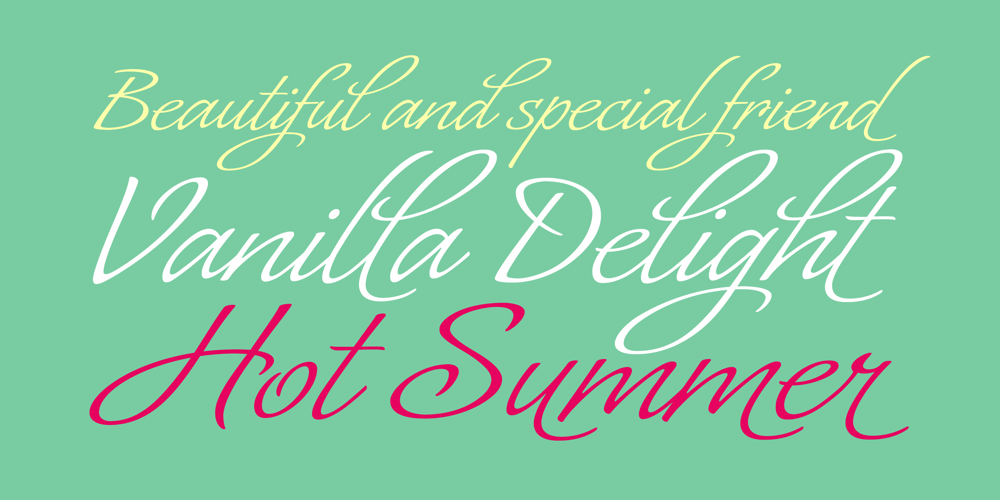
Angelus Font Family was designed by Alejandro Paul, Angel Koziupa and published by Sudtipos. Angelus contains 1 styles and family package options. Angelus is a flowing script that can be seen as a more casual modern version of the copperplate script, with a fresh take on the way the ascenders and descenders interact with the totality of the setting. Angelus is ideal for use in package design, as well as on personalized collateral and book covers.